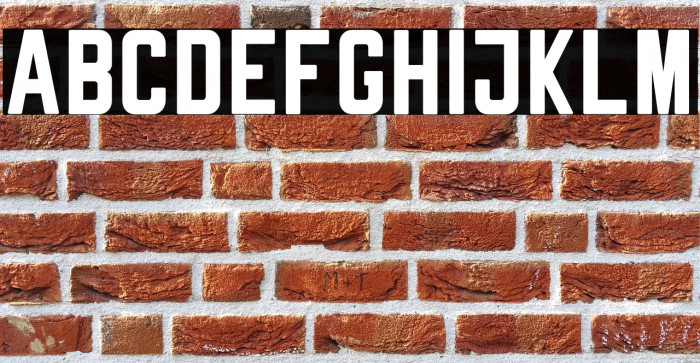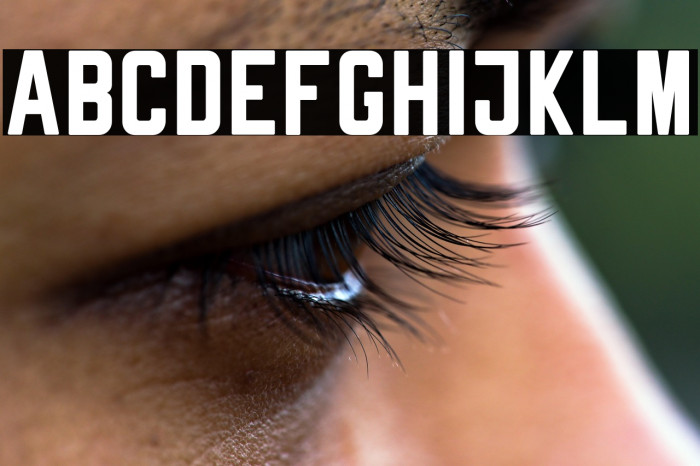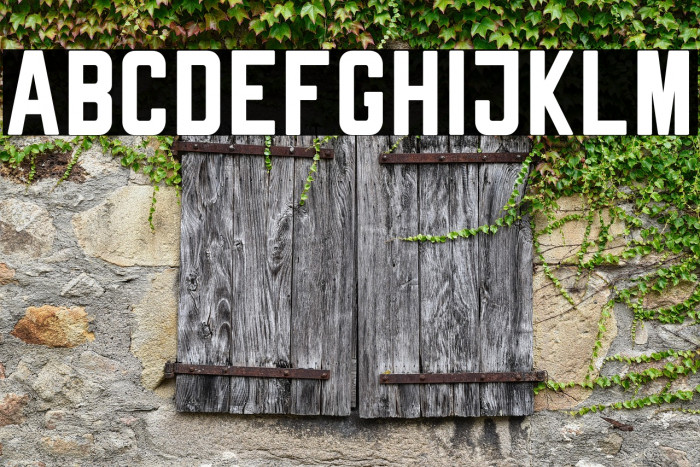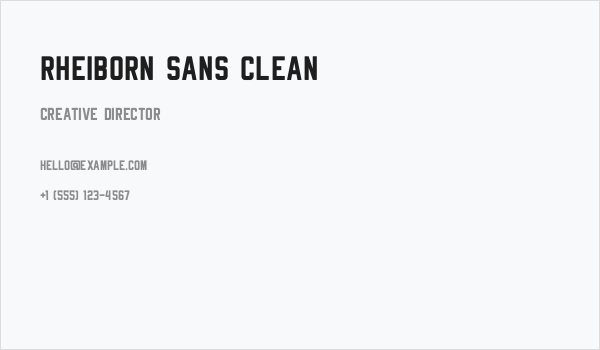
Rheiborn Sans Clean Font
Rheiborn Sans Clean Description
This typeface features a bold and clean design with a strong geometric structure. The characters are uniform in width, providing a balanced and cohesive appearance. The uppercase letters are particularly striking, with sharp edges and a modern aesthetic. The numerals are clear and easy to read, making them suitable for various applications. The special characters maintain the same boldness and clarity, ensuring consistency throughout the font. Its simplicity and strength make it versatile for a range of design projects.
Proposed ProjectsIdeal for branding, headlines, posters, and digital media where a strong visual impact is needed.